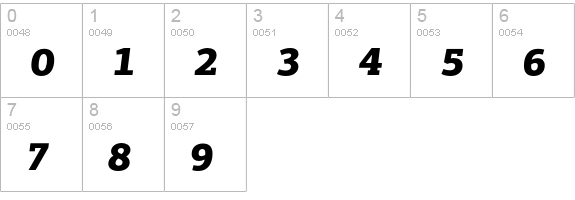
PFCentroSlabPro-BlackItalic Font Details
PFCentroSlabPro-BlackItalic is a striking and bold typeface that exudes elegance and sophistication. Its sleek design and strong slanted italics make it perfect for adding a touch of drama and flair to your projects. This font is ideal for creating eye-catching headlines, branding materials, and editorial designs that demand attention. What makes PFCentroSlabPro-BlackItalic even more appealing is that it is available for free download at FontsMarket.com. With its high-quality design and versatility, this font is a valuable addition to any designer's toolkit. Don't miss out on the opportunity to elevate your designs with this stunning typeface that combines modernity with a touch of classic refinement.